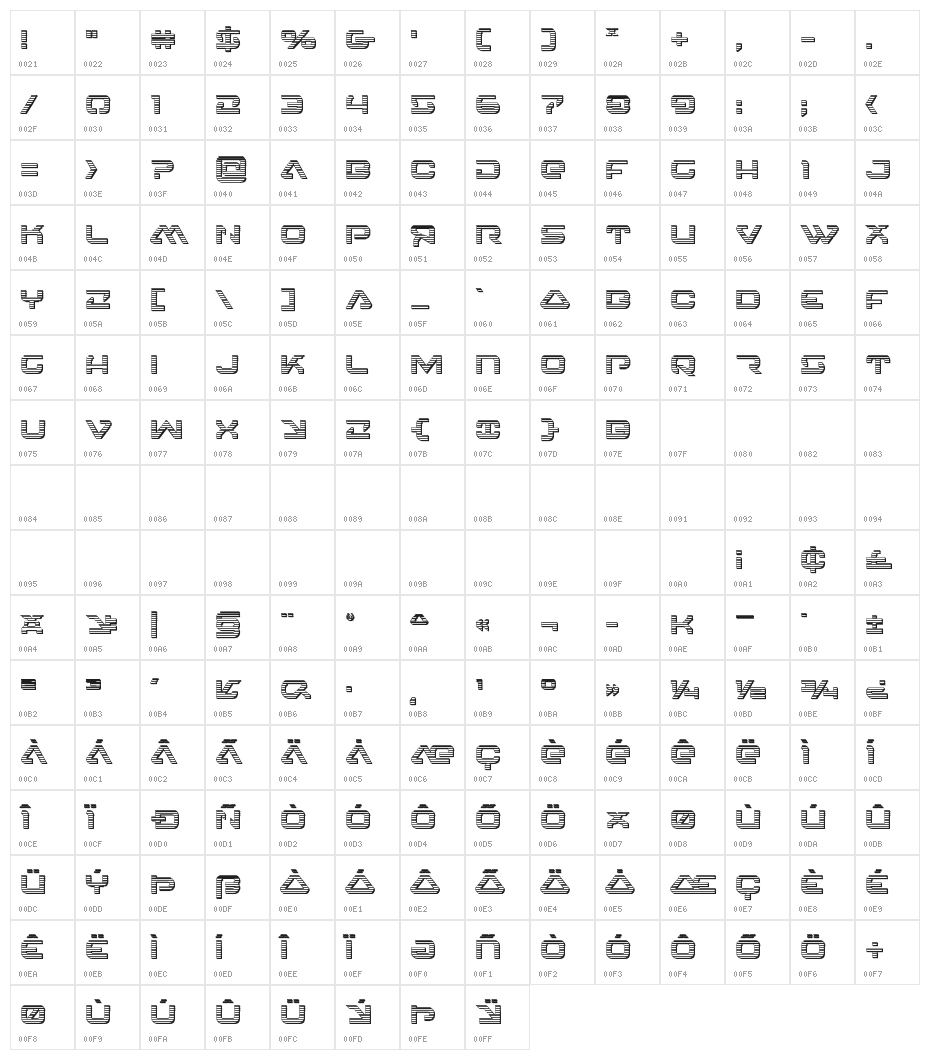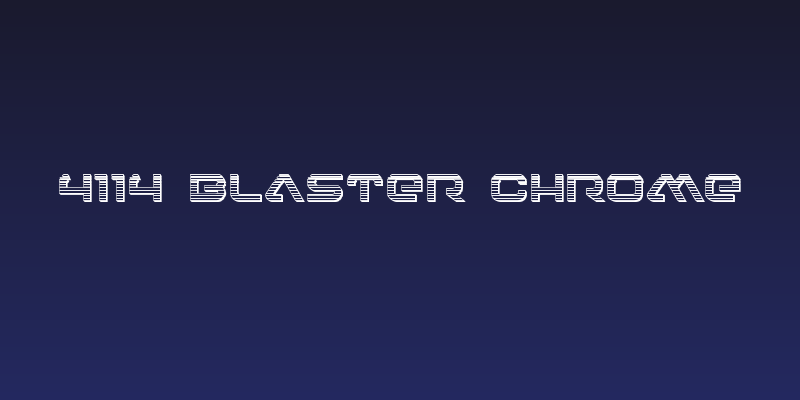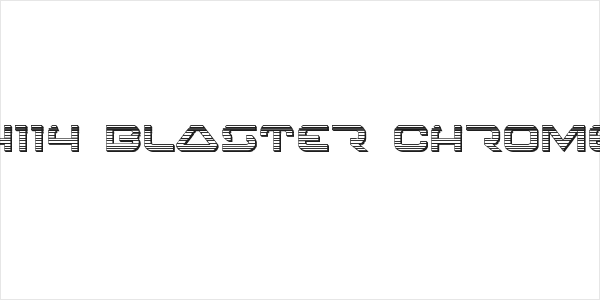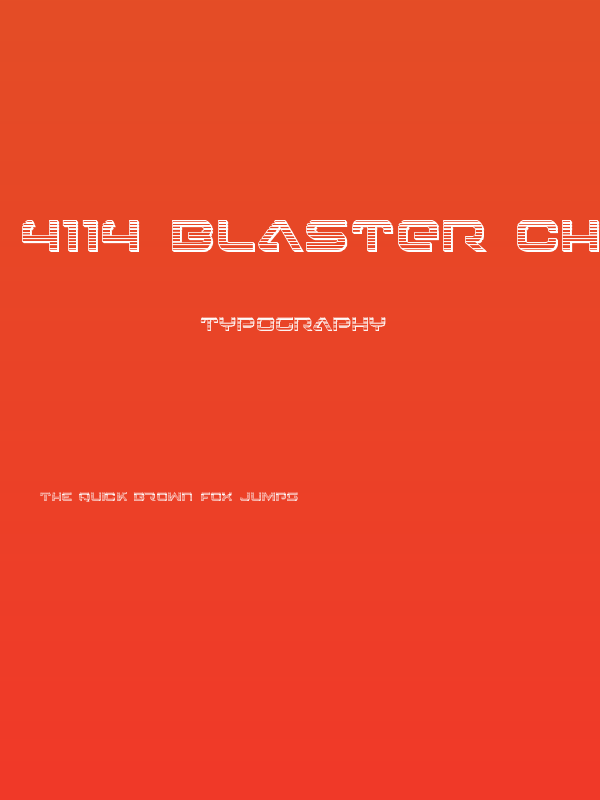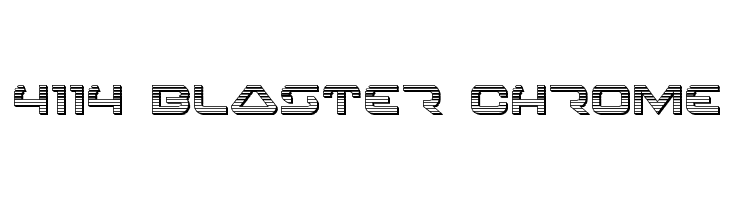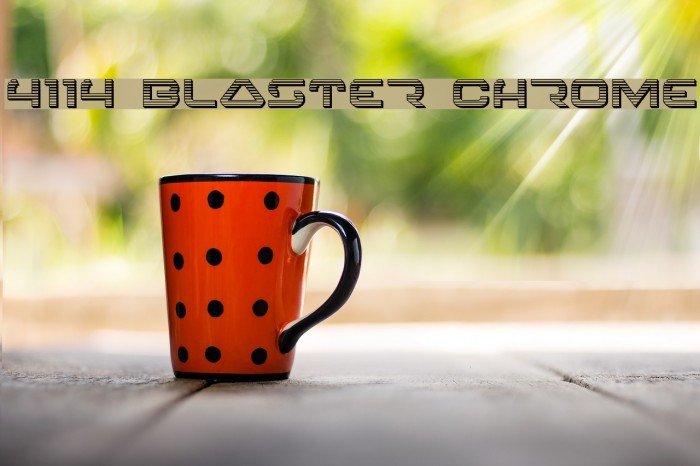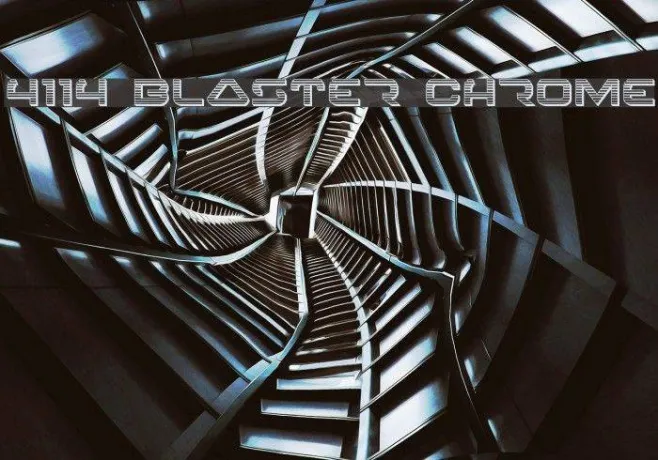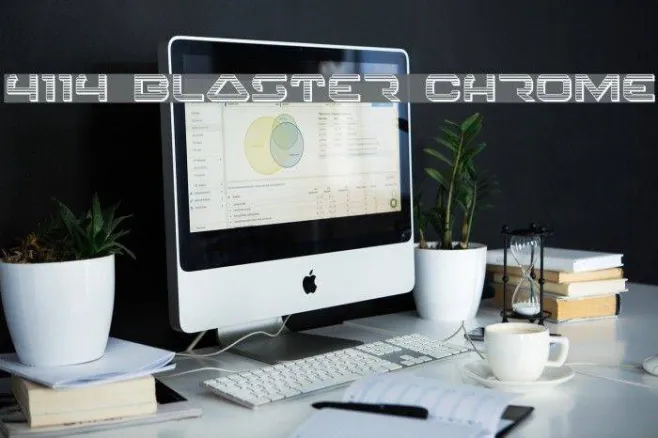
4114 Blaster Chrome Font
4114 Blaster Chrome Description
This font features a futuristic and industrial design, characterized by its bold, geometric shapes and distinct line patterns. Each character is constructed with multiple horizontal lines, creating a sense of depth and movement. The angular and sharp edges give it a mechanical and high-tech appearance, making it stand out in any design. The font maintains a consistent structure across uppercase, lowercase, numbers, and special characters, ensuring a cohesive look. Its unique style is reminiscent of digital or sci-fi themes, perfect for projects that require a modern and edgy aesthetic.
| Proposed Projects | Ideal for sci-fi movie posters, video game titles, tech branding, and futuristic event flyers. |